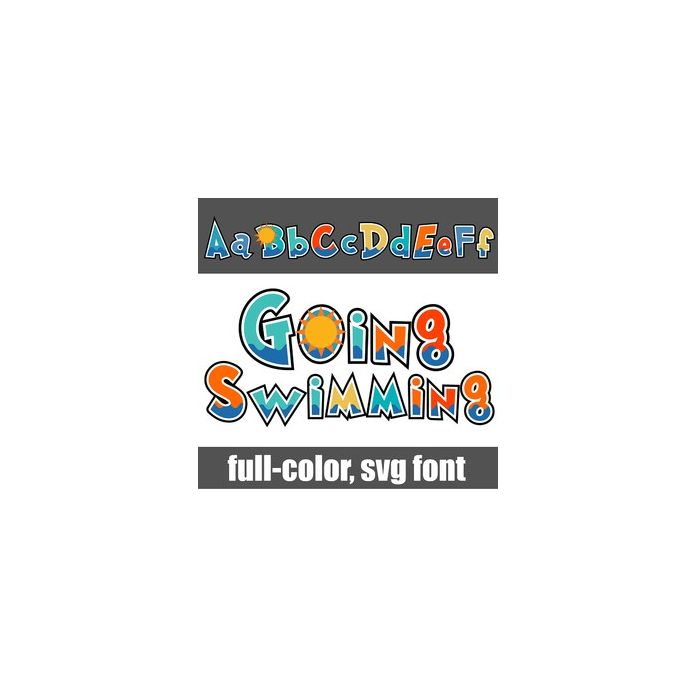
This full-color font features a whimsical and youthful font filled with waves, sunshines, and summer colors. There is an alt case with additional colors that you can access through your system or Silhouette's glyph map.